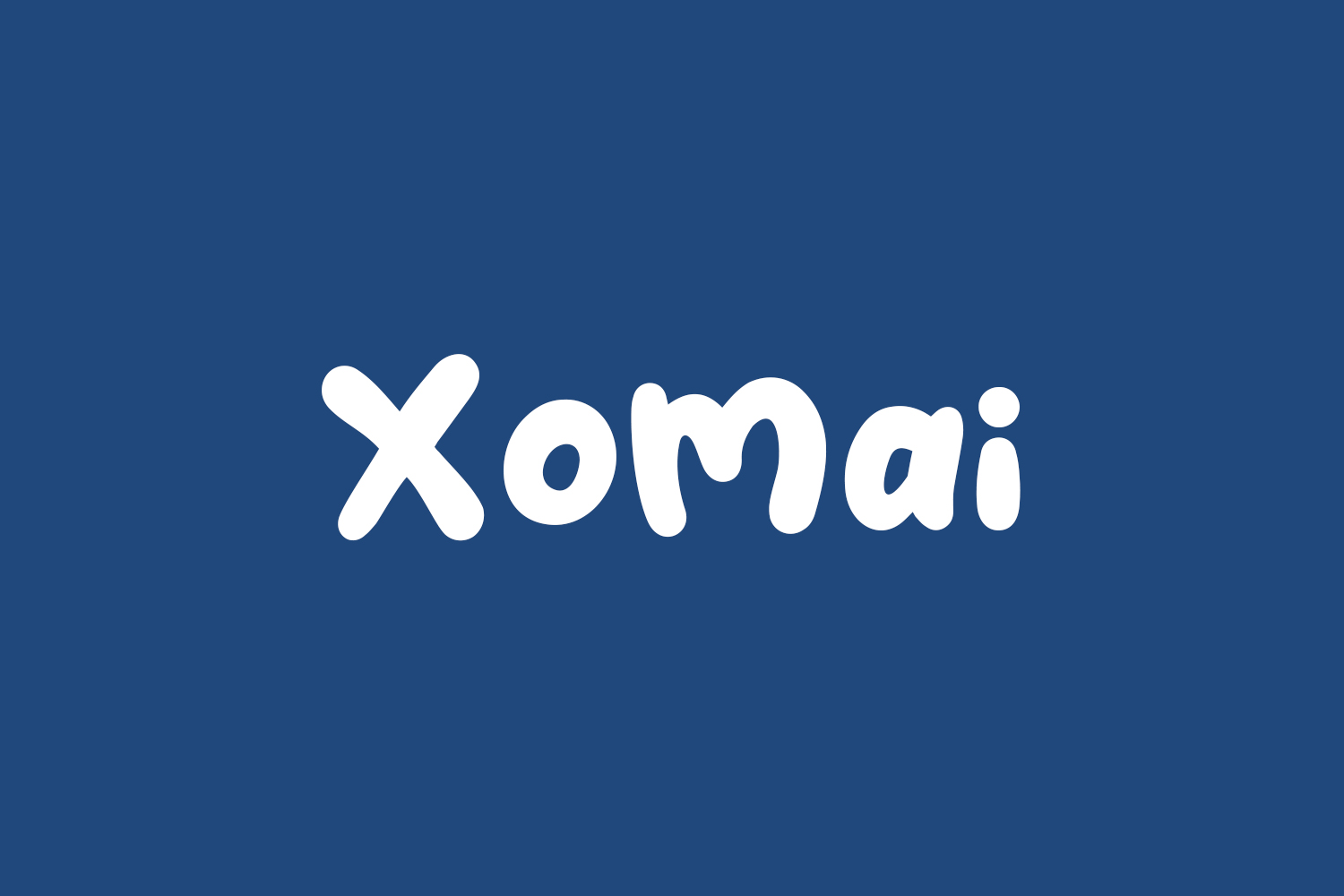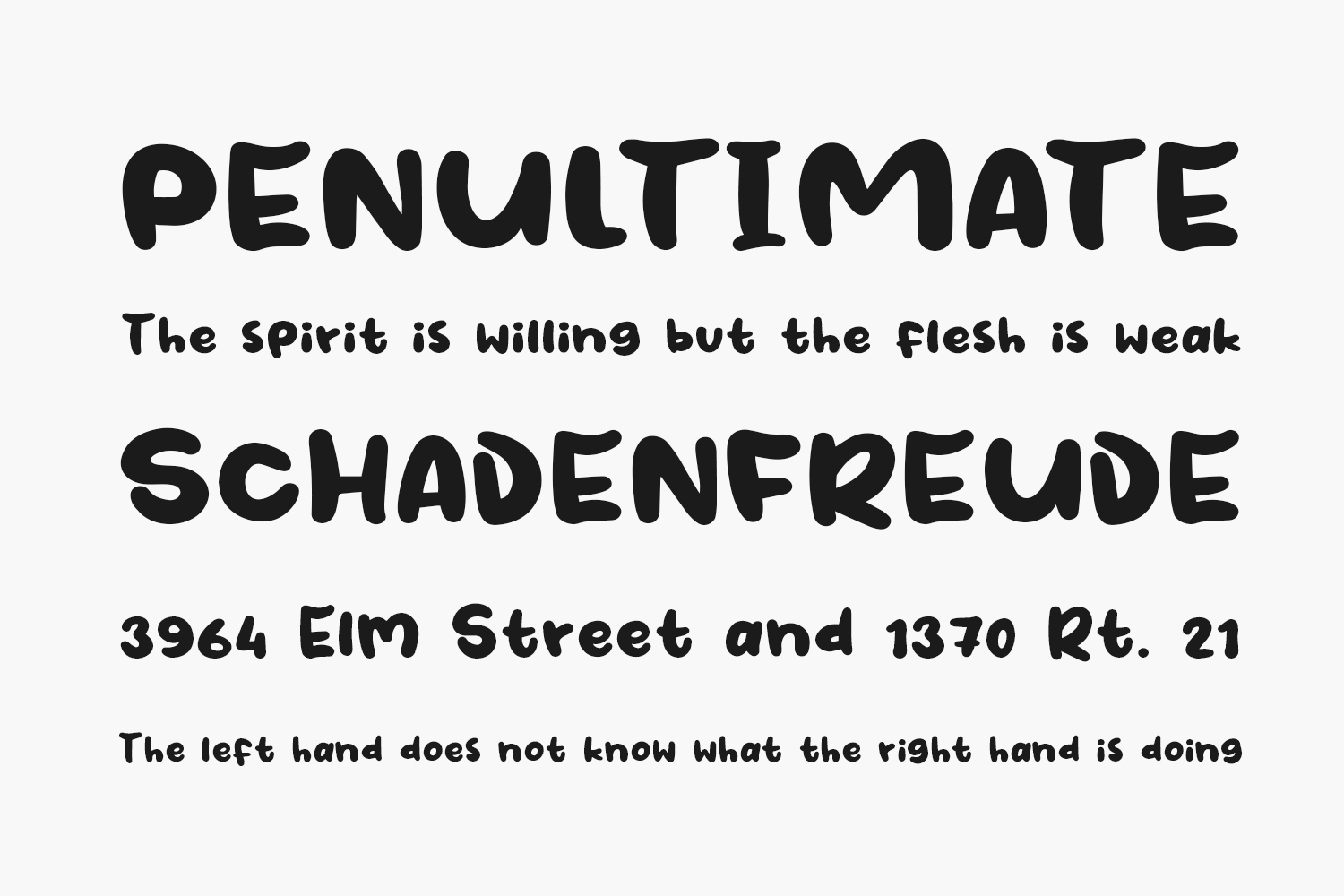
Xomai Free Font is a modern and fancy handwritten font perfect for posters, logos, magazines, book covers, banners, and many more! Get this amazing freebie, and use it to create lovely designs. Xomai Free Font was designed by Khurasan and is free for personal use only. Please purchase the full version for commercial use.